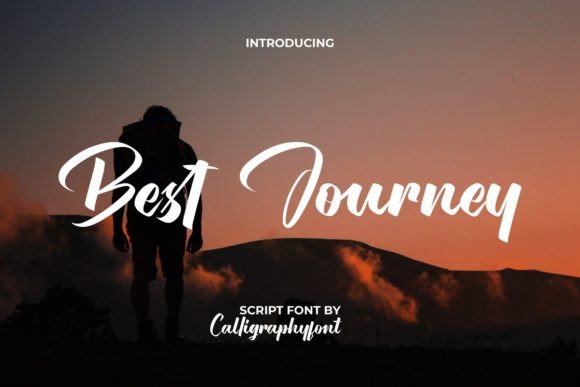
Unleash the beauty of your words with Best Journey Font, a modern calligraphy script that exudes grace and elegance. Experience the exquisite artistry of this font, meticulously crafted to elevate your designs with a touch of sophistication. Dive into a world of limitless possibilities, where your words become visual masterpieces, captivating the hearts of your audience.
Picture the allure of wedding vows penned in Best Journey Font, flowing effortlessly across the page like a gentle melody. Let your love story unfold in the embrace of this font, as its delicate strokes intertwine to create a timeless keepsake. Immerse yourself in the charm of handwritten letters, invitations, and heartfelt notes, each adorned with the unique character of Best Journey Font.
Step into the world of fashion and behold the allure of Best Journey Font adorning storefront signs, clothing labels, and promotional materials. Let the font's graceful curves add a touch of elegance to your brand, attracting customers with its magnetic charm. Create captivating menus and posters that showcase your culinary creations in an unforgettable manner. Unleash the power of Best Journey Font to transform your marketing efforts into works of art.
Transport your audience to faraway lands with travel brochures and itineraries adorned with Best Journey Font. Let the font's enchanting strokes evoke the spirit of adventure, inspiring wanderlust in the hearts of travelers. Craft captivating photography prints that capture the essence of special moments, each image imbued with the artistry of Best Journey Font.
Explore the endless possibilities of Best Journey Font in the realm of event planning. Create wedding invitations that exude romance and sophistication, menus that tantalize the taste buds, and programs that guide guests through the magical journey of your event. Elevate the ambiance of parties, celebrations, and corporate functions with signage and decorations that showcase the beauty of Best Journey Font.
Dive into the world of arts and crafts, where Best Journey Font breathes life into your creations. Design handmade cards, scrapbook pages, and personalized gifts that showcase your artistic flair. Transform ordinary objects into extraordinary works of art, as Best Journey Font weaves its magic into your crafting projects.